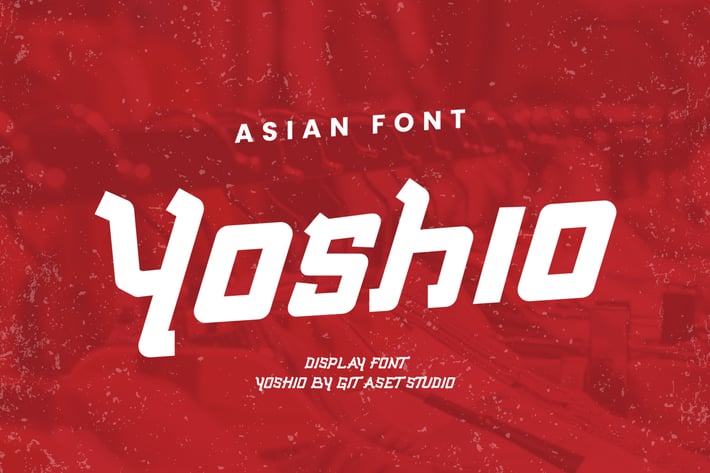
Yoshio - Japanese Style Font
This Japanese Style Font is a unique and captivating design asset that will add an exotic touch to your projects. It offers a beautiful blend of traditional Japanese calligraphy and modern typography, which makes it perfect for various creative endeavors.
Whether you're working on a logo, website, poster, or packaging design, this Japanese Style Font will provide a distinct and eye-catching aesthetic. Its clean lines and authentic stroke patterns will add a touch of elegance and sophistication to your creative works.
If you are a graphic designer, typographer, or anyone seeking to infuse a touch of Japanese culture and style into your projects, this design asset is perfect for you. It offers endless possibilities to explore the rich visual heritage of Japan and create impactful designs that stand out from the crowd.